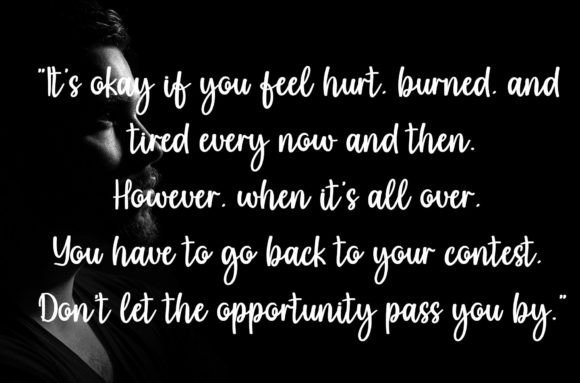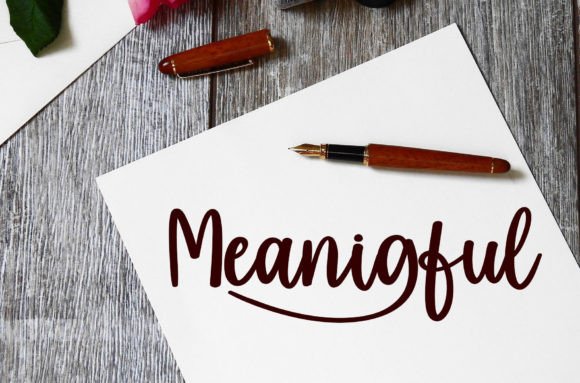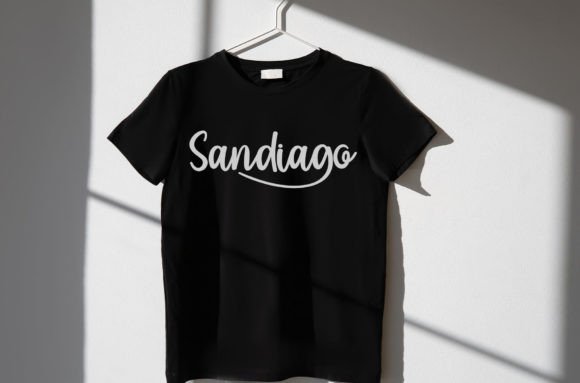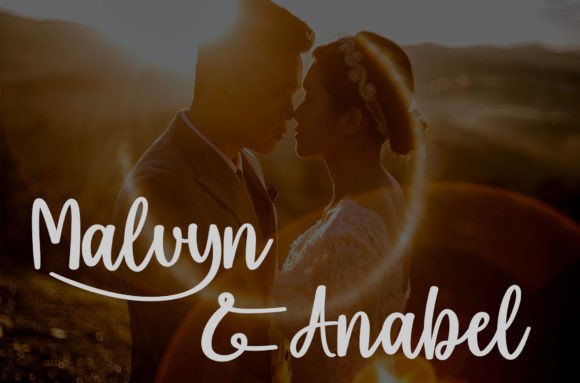
Introduction to Sandiago Font
Have you ever been stuck on a creative project, staring at a blank page, searching for the perfect font to bring your vision to life? It’s a familiar feeling for many designers, but with the right tool, the process can be a breeze. For those who crave a balance between fun and professionalism, there’s one font that stands out from the rest: the Sandiago Font.
This versatile font is more than just a pretty face – its bold lines and conservative curves make it a reliable choice for a wide range of design projects. Whether you’re working on a high-quality logo, a free download brochure, or a creative project that requires a professional touch, the Sandiago Font is a valuable design resource that can help you achieve your goals.
With its transparent background and high-quality design, the Sandiago Font is an excellent addition to any designer’s toolkit. Say goodbye to design anxiety and hello to a world of creative possibilities with this fantastic font.
Key Features of Sandiago Font
- High-quality vector design for a creative project, available for free download with a transparent background.
- Designed with a unique blend of modern and vintage elements, perfect for a wide range of design applications.
- Includes a comprehensive character set, covering Latin and Cyrillic alphabets, as well as various punctuation marks.
Honest Review: Sandiago Font
I recently stumbled upon the Sandiago Font, and I must say it’s been a game-changer for my creative projects. This free download is a high-quality addition to any designer’s arsenal.
- Unique and stylish design that stands out from the crowd
- Perfect for creative projects that require a touch of sophistication
- Transparent background allows for seamless integration with various design elements
- Free download makes it accessible to designers of all levels
The Sandiago Font is incredibly versatile and can be used in a variety of design contexts, from brochures to business cards. Its high-quality design and transparent background make it a great addition to any project.
- May not be suitable for very formal or traditional designs
- Could be overwhelming if used in large quantities
Overall, I’m impressed with the Sandiago Font and would definitely recommend it to fellow designers. Its unique design and high-quality construction make it a valuable resource for any creative project.
Common Use Cases for Sandiago Font
The Sandiago Font is ideal for creative projects that require a high-quality, transparent background font. It’s commonly used in graphic design, digital art, and web design.
Alternatives to Sandiago Font
The Great Vibes Font is a high-quality, elegant script font perfect for creative projects requiring a touch of sophistication. It’s ideal for use in logos, branding, and advertising materials. Great Vibes Font is available for free download and offers a transparent background, making it easy to customize. Compared to Sandiago Font, Great Vibes Font has a more refined and polished look, making it suitable for high-end design projects.